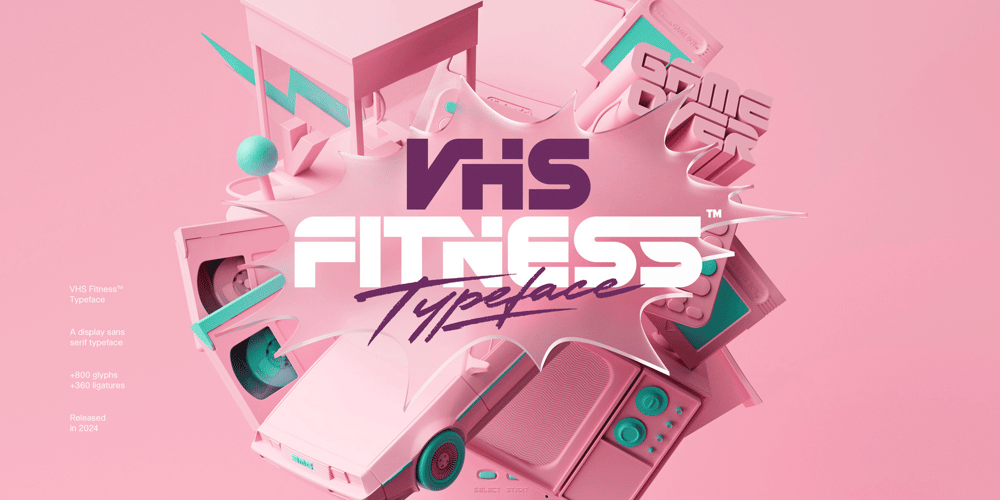
Vhs Fitness Font Family was designed by Jérémie Gauthier and published by Almarena. Vhs Fitness contains 2 styles and family package options. Dive into a nostalgic era with our latest creation: VHS FITNESS™, a display typeface inspired by the 80s and retrogaming.VHS FITNESS™ is available in Regular and Italic versions with over 800 glyphs for each style. With over 360 ligatures, it makes it possible to stand out and bring perfect harmony between each letter. Whether for striking logos, eye-catching headlines or striking posters, this typeface is the perfect embodiment of the retro spirit.Step back in time, let yourself be carried away by the charm of the 80s, and give your designs a vintage touch!